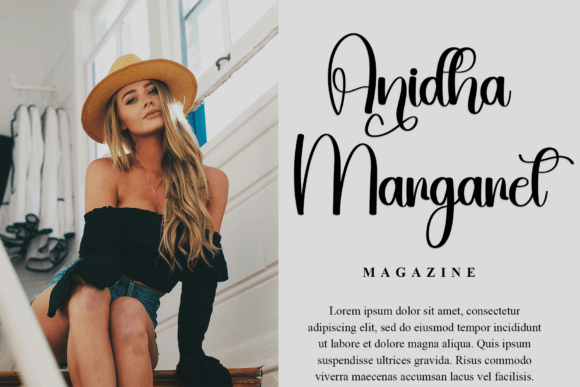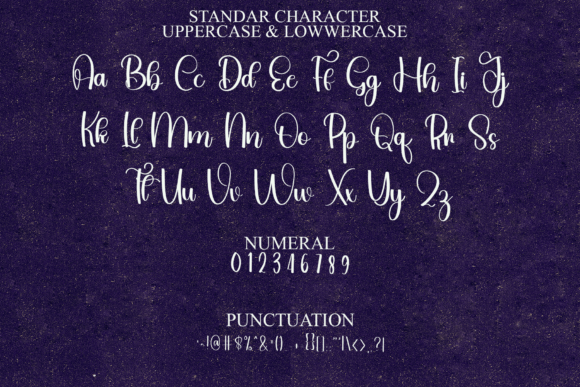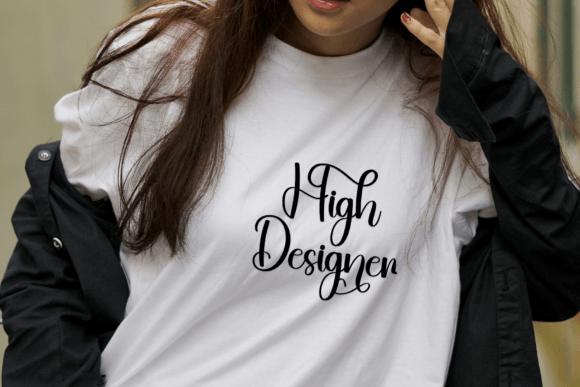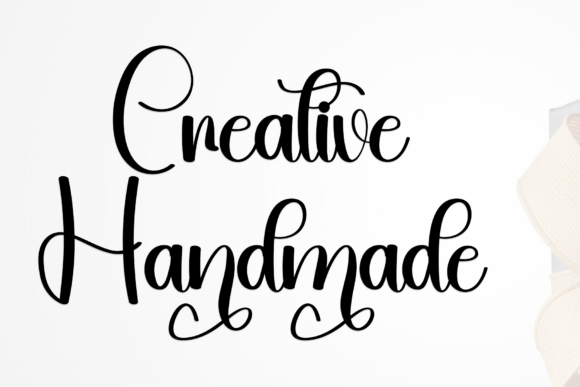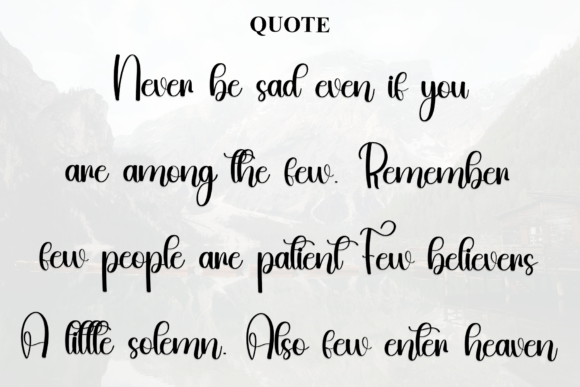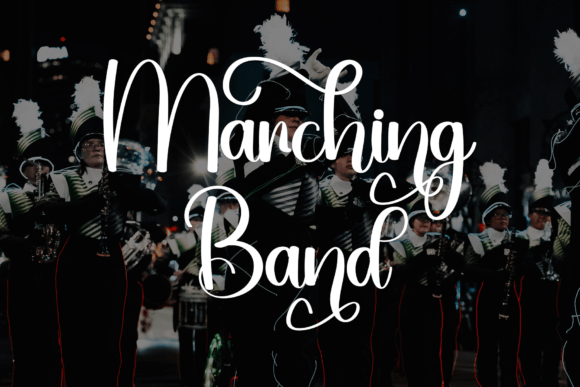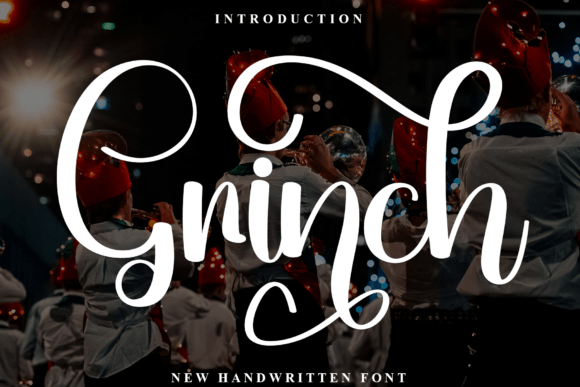
The Grinch Font: A Beautiful and Versatile Typeface for Designers and Crafters
The Grinch Font is a stunning typeface that has captured the hearts of designers and crafters alike. Its smooth touch and beautiful strokes give it a natural feel that can elevate any design project. In this article, we’ll explore the features and benefits of the Grinch Font, and discuss how it can be used in a variety of creative applications.
What is the Grinch Font?
The Grinch Font is a digital typeface inspired by the beloved character from Dr. Seuss’s classic children’s book, “How the Grinch Stole Christmas.” The font is designed to evoke the playful, whimsical spirit of the Grinch, while also providing a clean and elegant look that can be used in a wide range of design projects.
Features of the Grinch Font
The Grinch Font boasts several features that make it a standout typeface:
• Smooth touch and beautiful strokes: The Grinch Font has a smooth, cursive feel that gives it a natural, hand-drawn look. The strokes are elegant and flowing, making it perfect for designs that require a touch of sophistication.
• Versatile and adaptable: The Grinch Font can be used in a variety of design projects, from digital graphics to print materials.
• Easy to read: Despite its playful feel, the Grinch Font is highly legible, making it suitable for use in body text as well as headlines.
Uses for the Grinch Font
The Grinch Font is a versatile typeface that can be used in a wide range of creative applications, including:
• Banners: The Grinch Font is perfect for creating eye-catching banners for websites, social media, or events.
• YouTube thumbnails: Add a touch of personality to your YouTube thumbnails with the Grinch Font.
• Logo designs: The Grinch Font can be used to create unique and memorable logos for businesses or personal brands.
• Wedding invitation cards: The Grinch Font’s elegant feel makes it suitable for use in wedding invitation cards and other formal stationery.
• Clothing mockups: Use the Grinch Font to create stylish and eye-catching clothing mockups for t-shirts, hoodies, and more.
• T-shirts and apparel: The Grinch Font is a great choice for designing custom t-shirts and other apparel.
Tips for Using the Grinch Font
Here are a few tips for getting the most out of the Grinch Font:
• Experiment with different sizes and colors: The Grinch Font looks great in a variety of sizes and colors, so don’t be afraid to experiment and find the perfect combination for your design.
• Pair with other fonts: The Grinch Font pairs well with a range of other fonts, so try combining it with other typefaces to create a unique look.
• Use it to add personality to your designs: The Grinch Font is a great way to add a touch of personality to your designs, so don’t be afraid to get creative and have fun with it!
The Grinch Font is a beautiful and versatile typeface that is perfect for designers and crafters looking to add a touch of personality to their work. With its smooth touch, beautiful strokes, and adaptable feel, it’s no wonder that the Grinch Font has become a popular choice for a wide range of creative applications. Whether you’re designing banners, logos, or t-shirts, the Grinch Font is sure to bring a smile to your face and a touch of magic to your designs.
So why not give the Grinch Font a try? With its ease of use and versatility, it’s the perfect addition to any designer’s toolkit.